Ducati Font
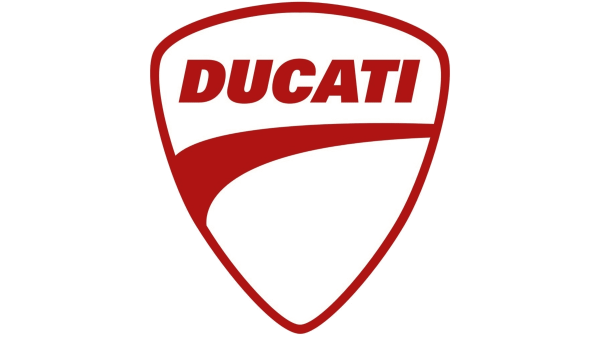
What Font is Used in the Ducati Logo?
Ducati Font is most likely Univers Pro 85 Extra Black Oblique, a bold and dynamic sans-serif typeface with a strong italic slant. This font choice perfectly captures Ducati’s brand essence—speed, performance, and precision. The heavy weight and forward-leaning design convey motion and power, making it ideal for a company whose identity revolves around high-performance motorcycles.
I think the Ducati Font works exceptionally well because it looks fast even when standing still. The oblique style adds energy and aggression, while the solid structure ensures legibility and authority. It’s a font that mirrors Ducati’s engineering excellence and racing heritage—bold, sleek, and unmistakably confident.